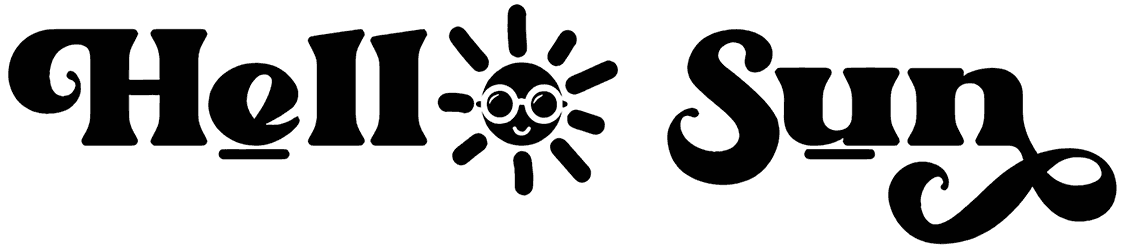
Including a bunch of lovely handwritten characters, Millenium Sunset focuses on what’s natural rather than what’s perfect. That’s how this beach font brings creativity as well as an organic feel to your project. This all happens in just a single click, can you believe that?
Looks like you’re going to have so much fun with this summer font and its soft, warm tone in your next party posters, clothing store signs, chocolate milk branding, Valentine’s Day flyers, and so on.